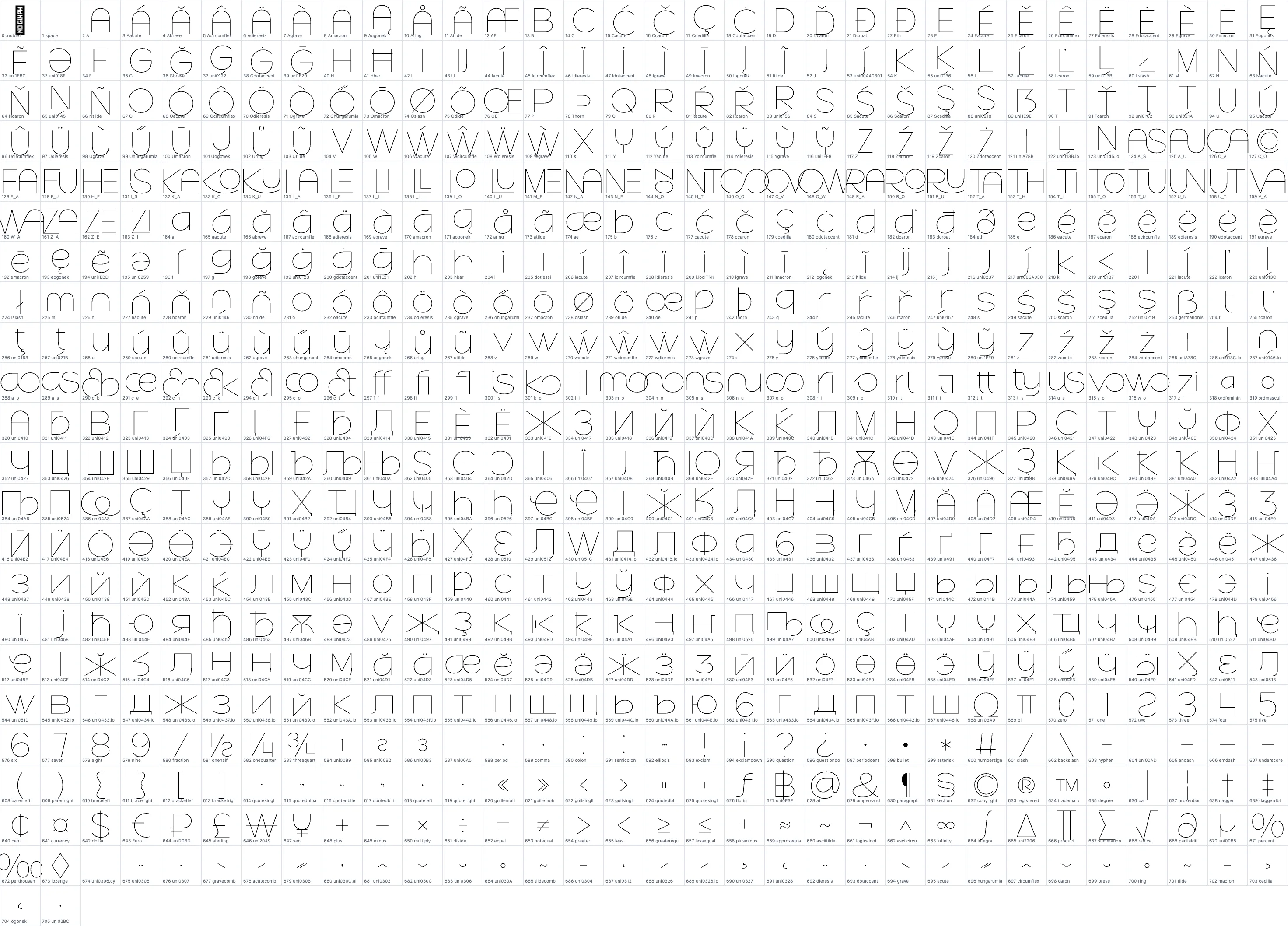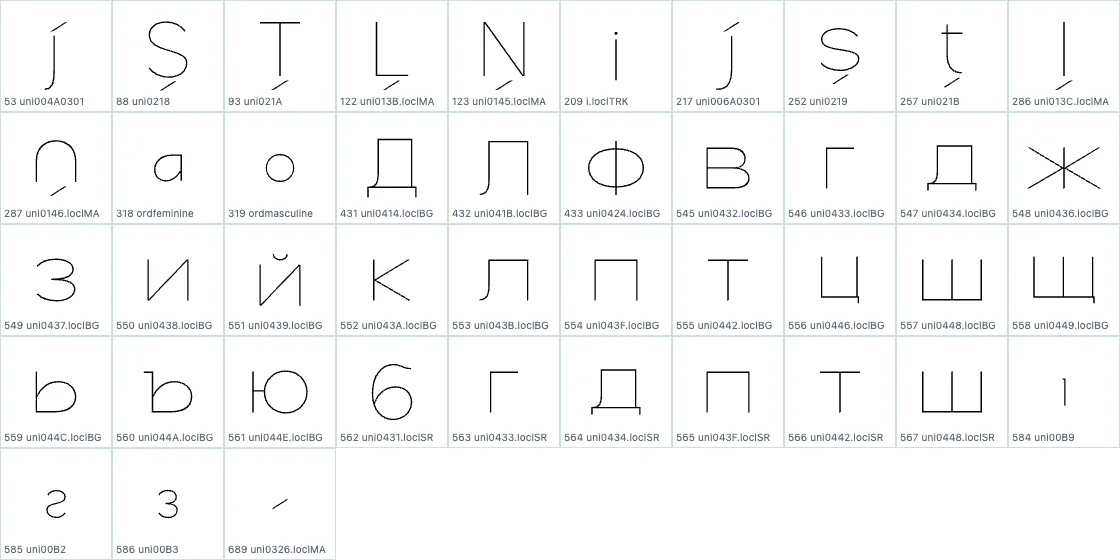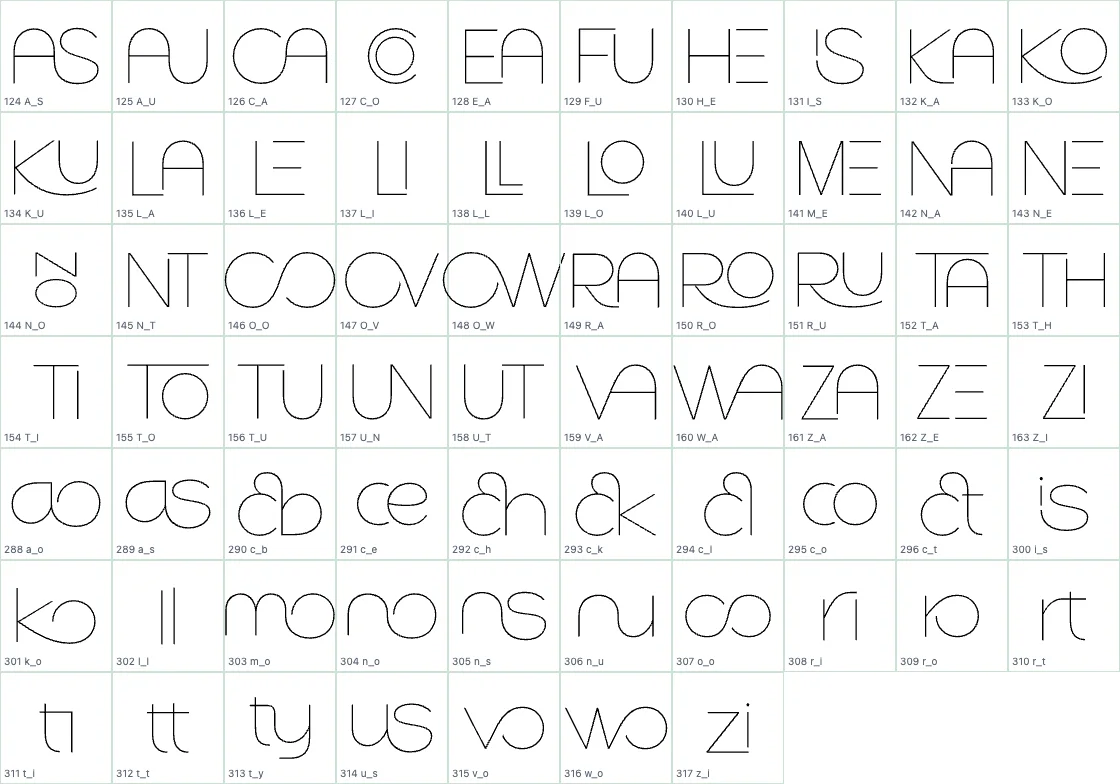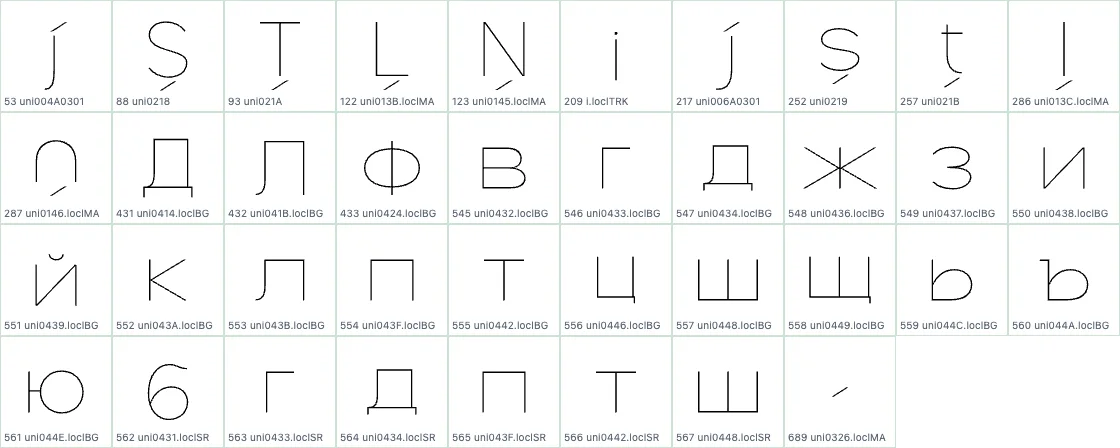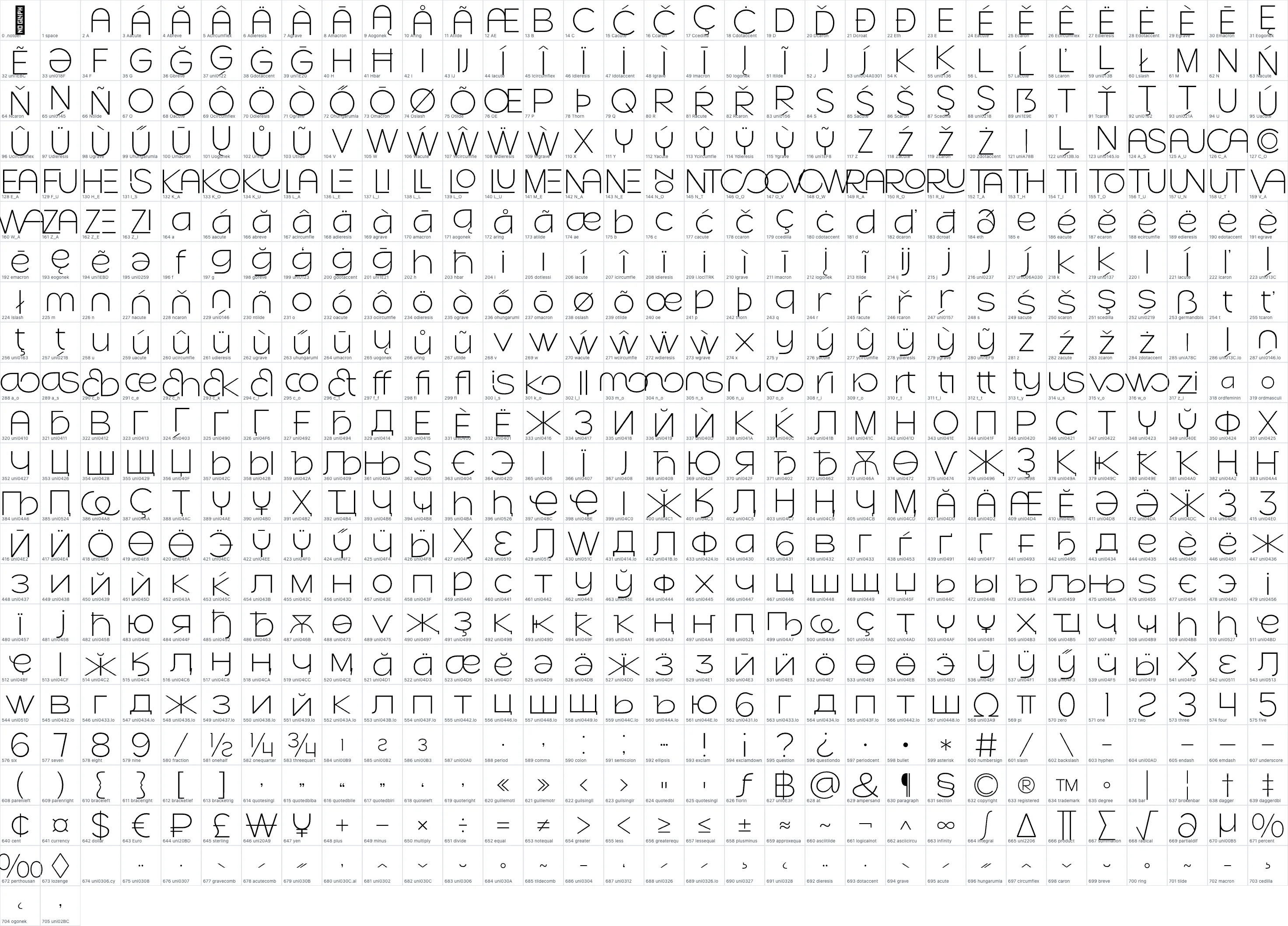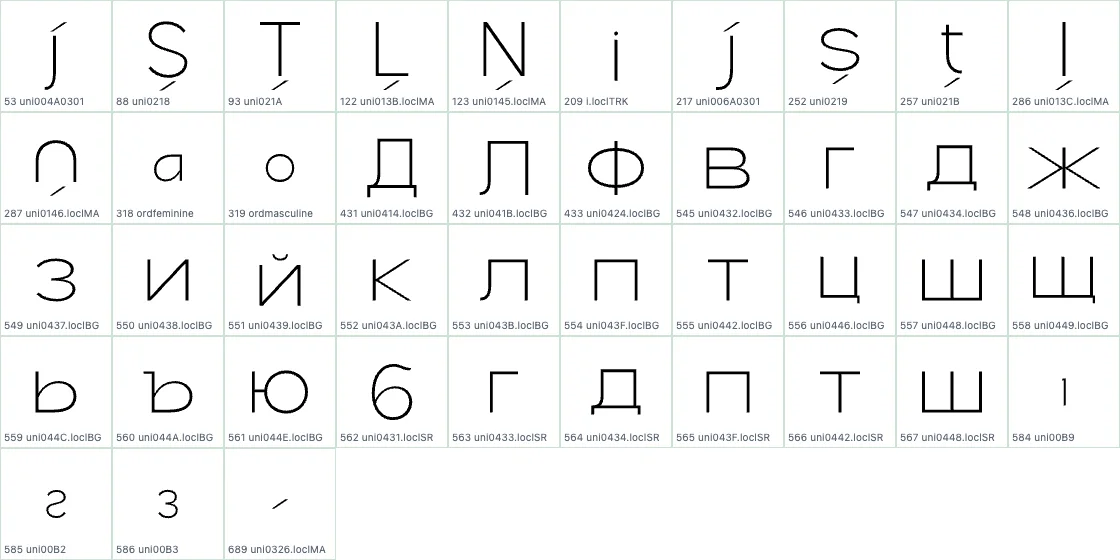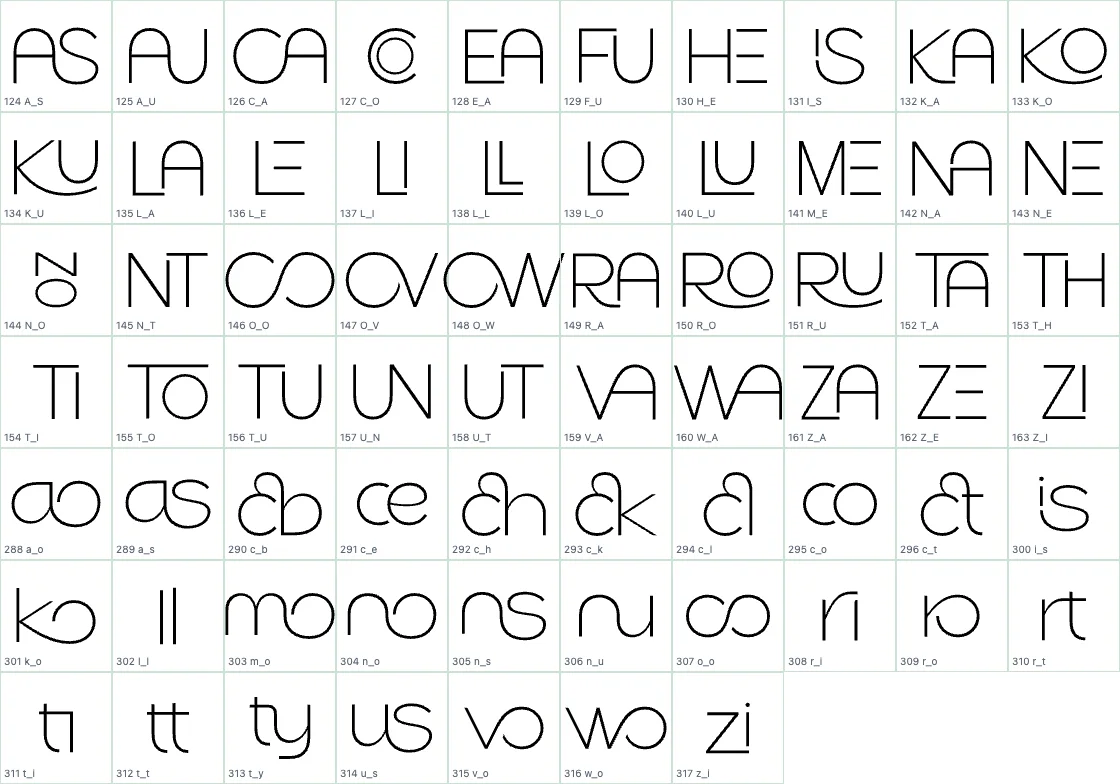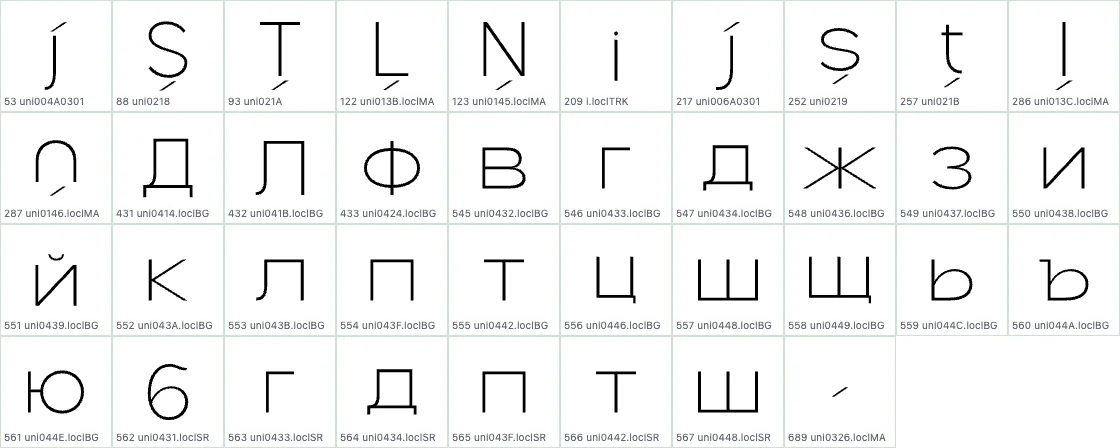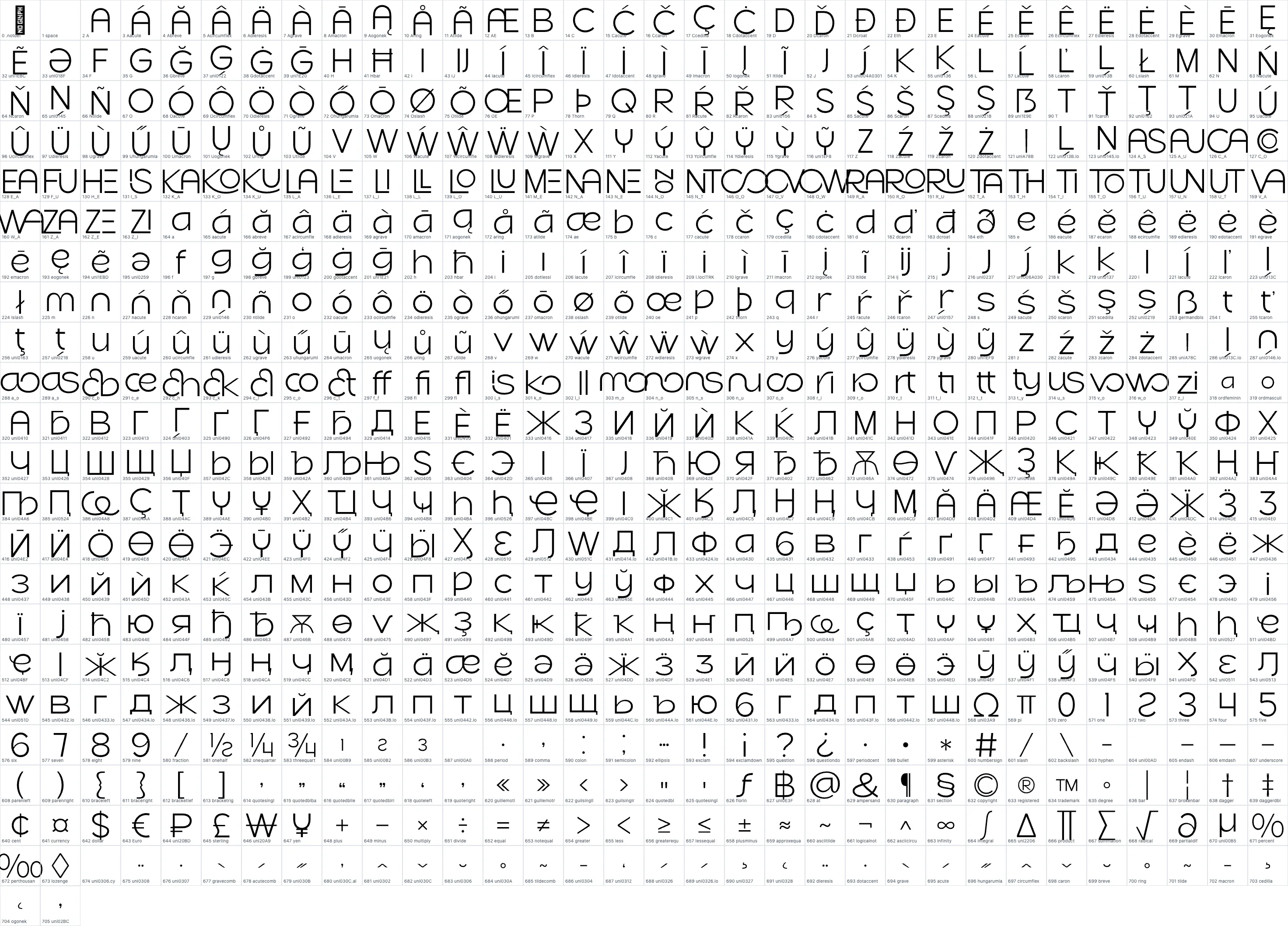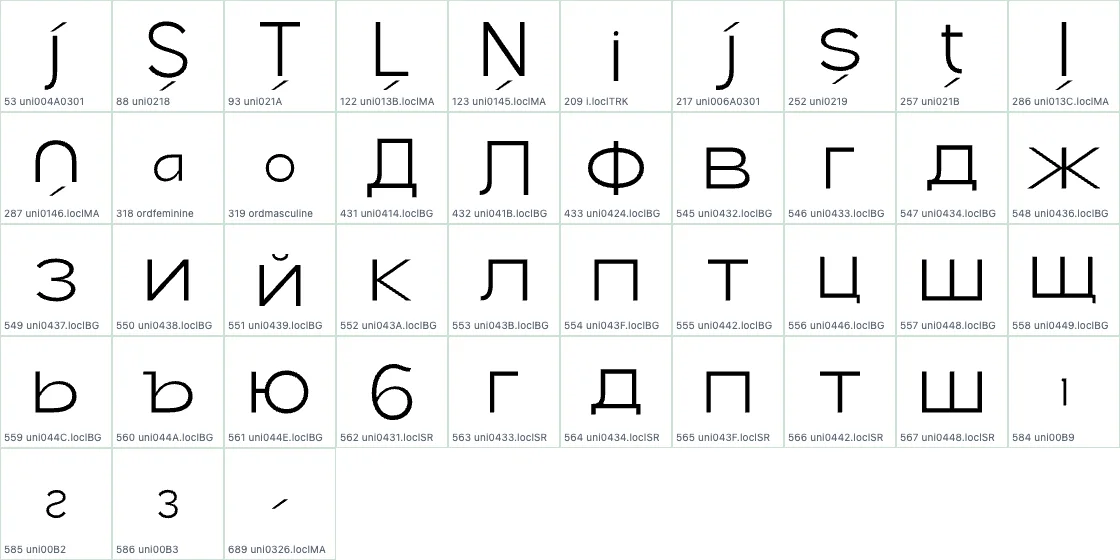
Row Vaticano – Relaxed Full Cyrillic
- Cyrillic and Multilingual Support: Includes a comprehensive range of characters, supporting Cyrillic and various other language sets, broadening its usability for international projects.
- Great for Display and Body Text: Works well in both headings and body text due to its legible and balanced design. Whether used in digital interfaces or print media, Row Vaticano provides a versatile and stylish option for creators seeking a straightforward yet refined font choice.